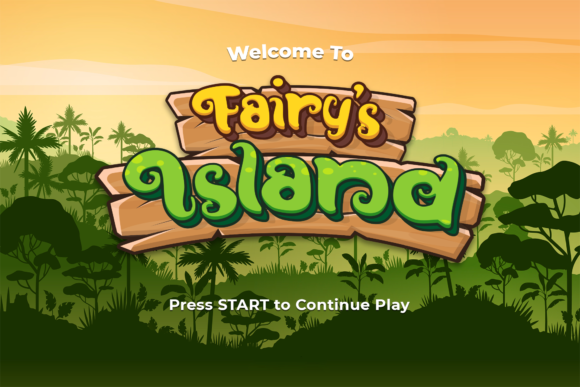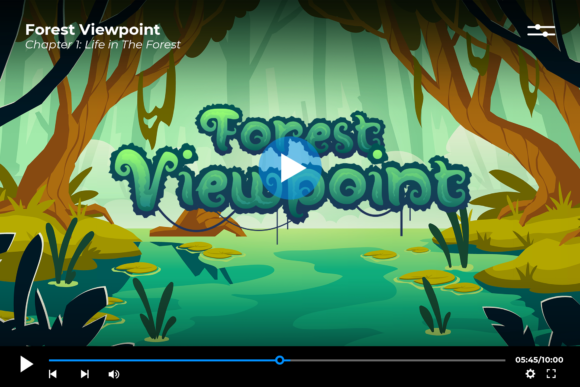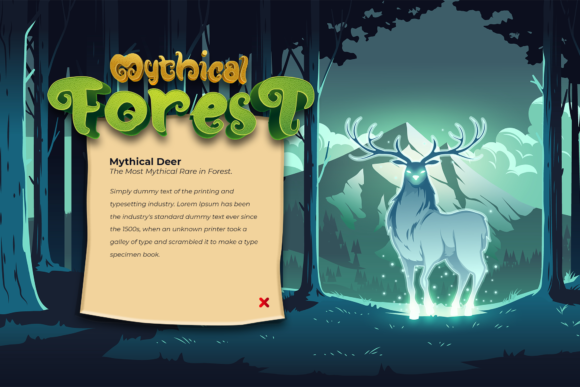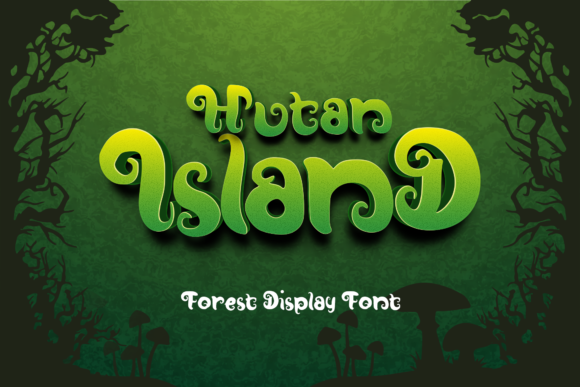
Introduction to Hutan-Island Font
Hutan-Island is a unique and interesting display font.
Incredibly versatile, this font will fit a wide pool of designs Fall in love with its incredibly stylish look and use it to create spectacular designs.